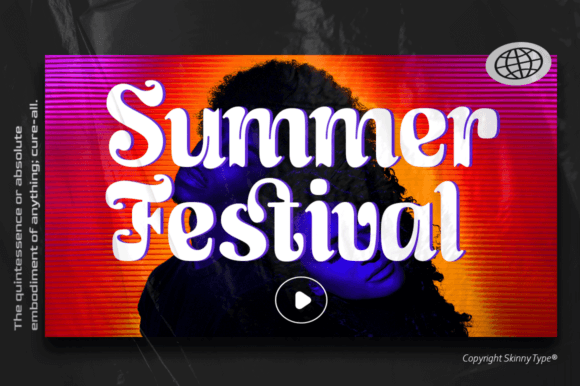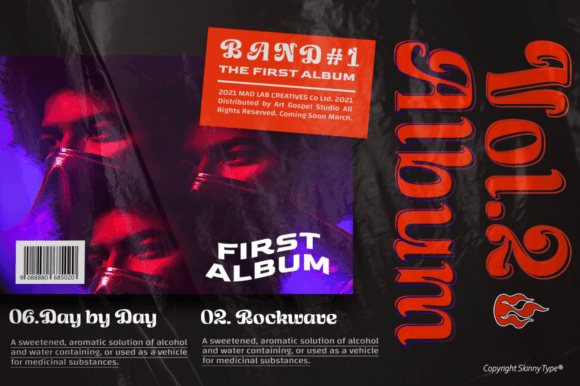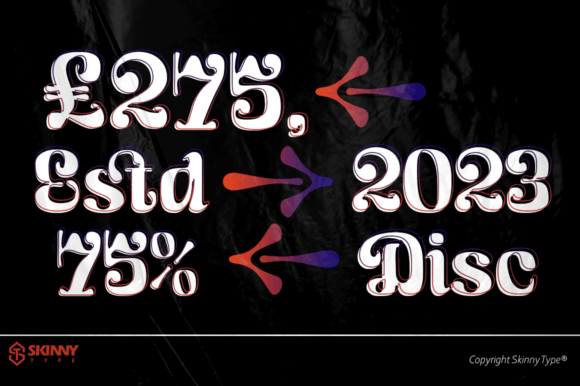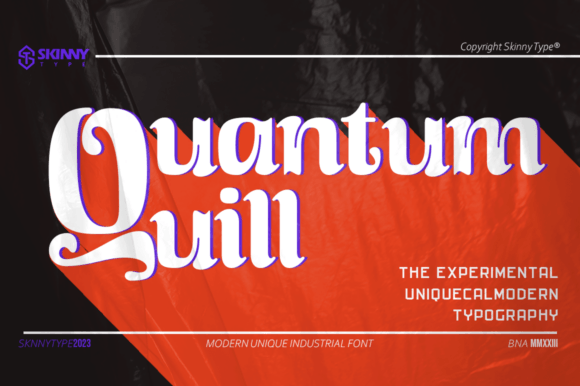
Introduction to Quantum Quill Font
Quantum Quill is an elegant and bold serif font.
Fall in love with its incredibly versatile style and use it to create gorgeous wedding invitations, beautiful stationary art, eye-catching social media posts, and much more .
Quantum Quill Font offers exceptional quality and versatility, making it a valuable addition to your design toolkit. Whether you’re creating for personal projects or commercial use, Quantum Quill Font delivers professional results.